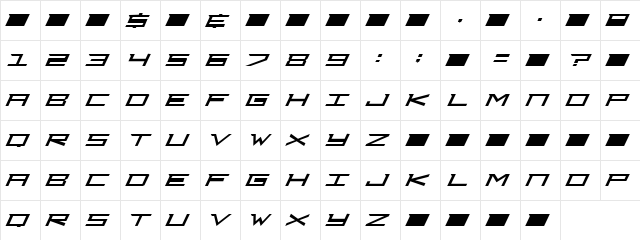
Dj Courageous Regular
Design Context for Dj Courageous Typeface
Dj Courageous is a composed and adaptable typeface that performs quietly and consistently across a wide range of design contexts.